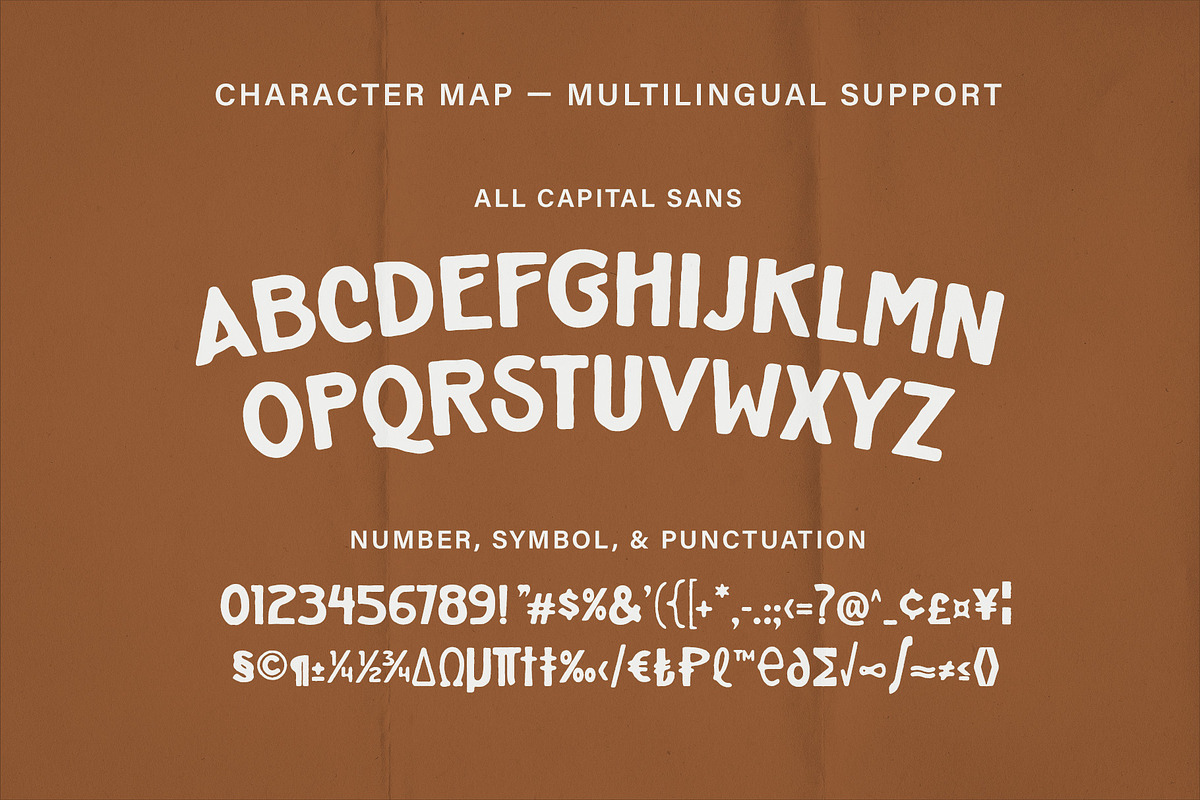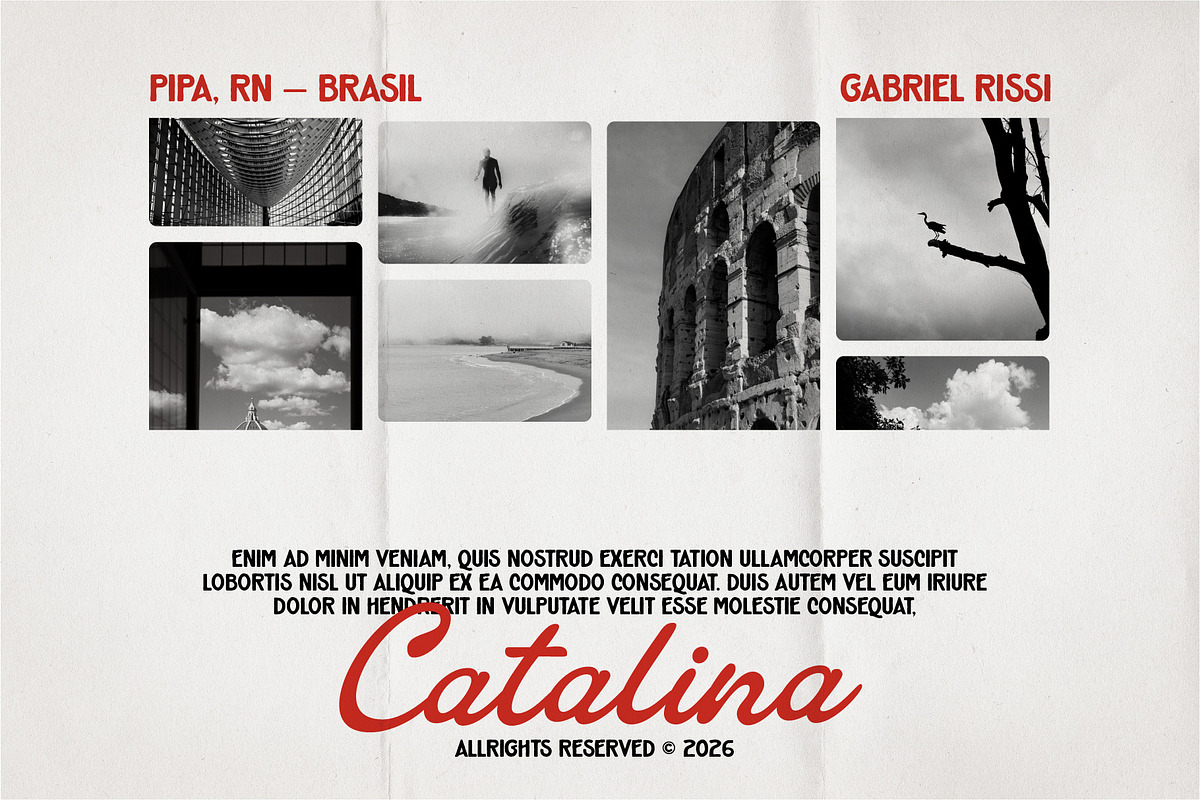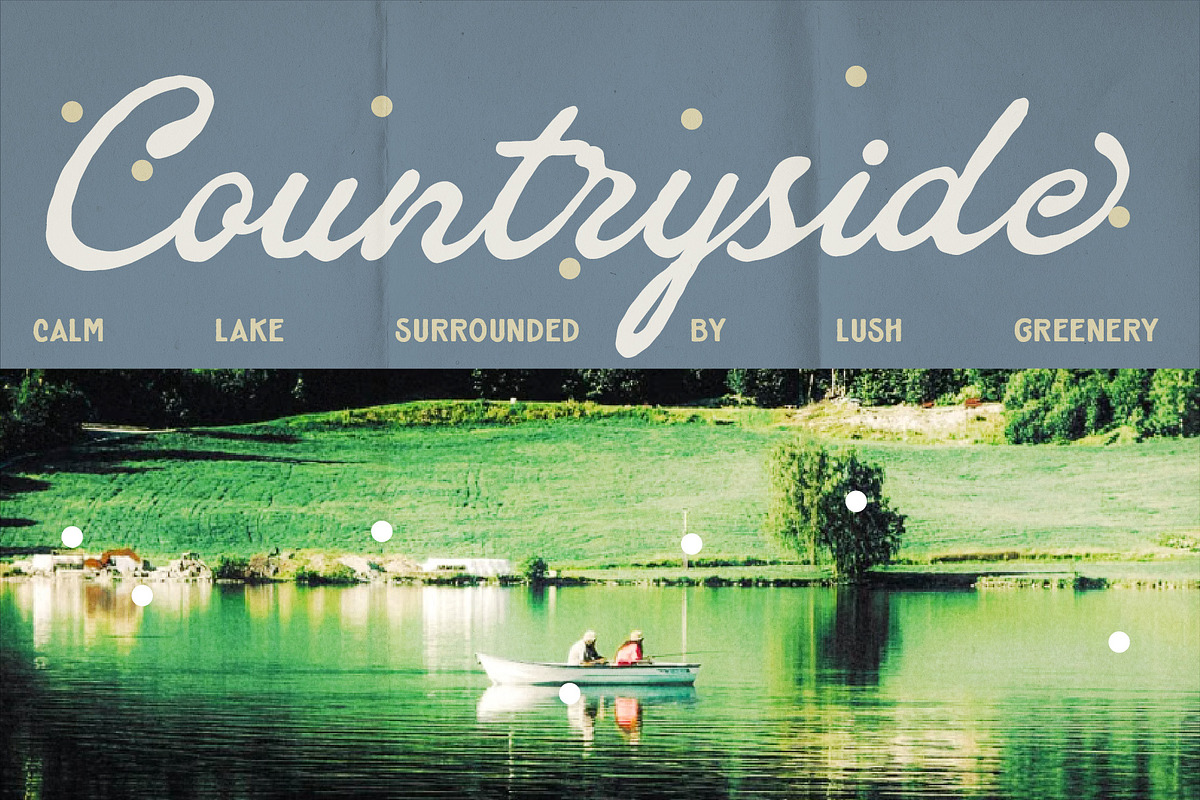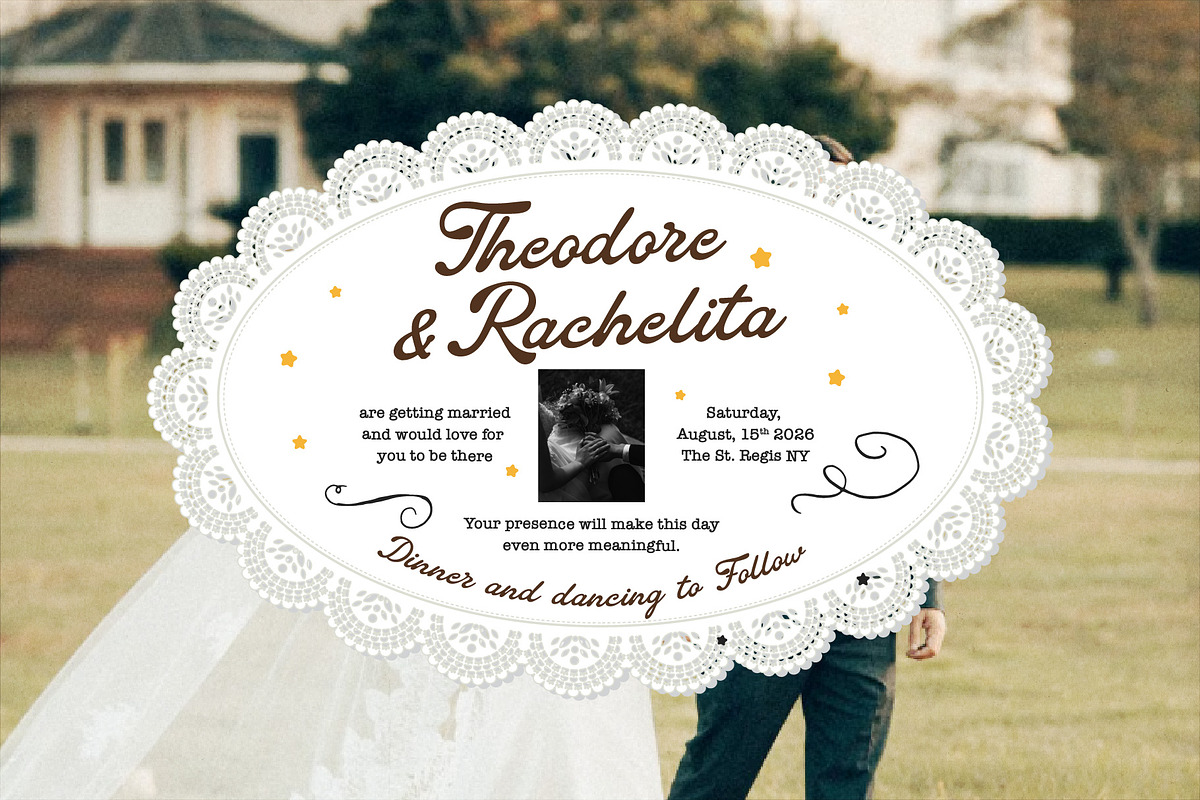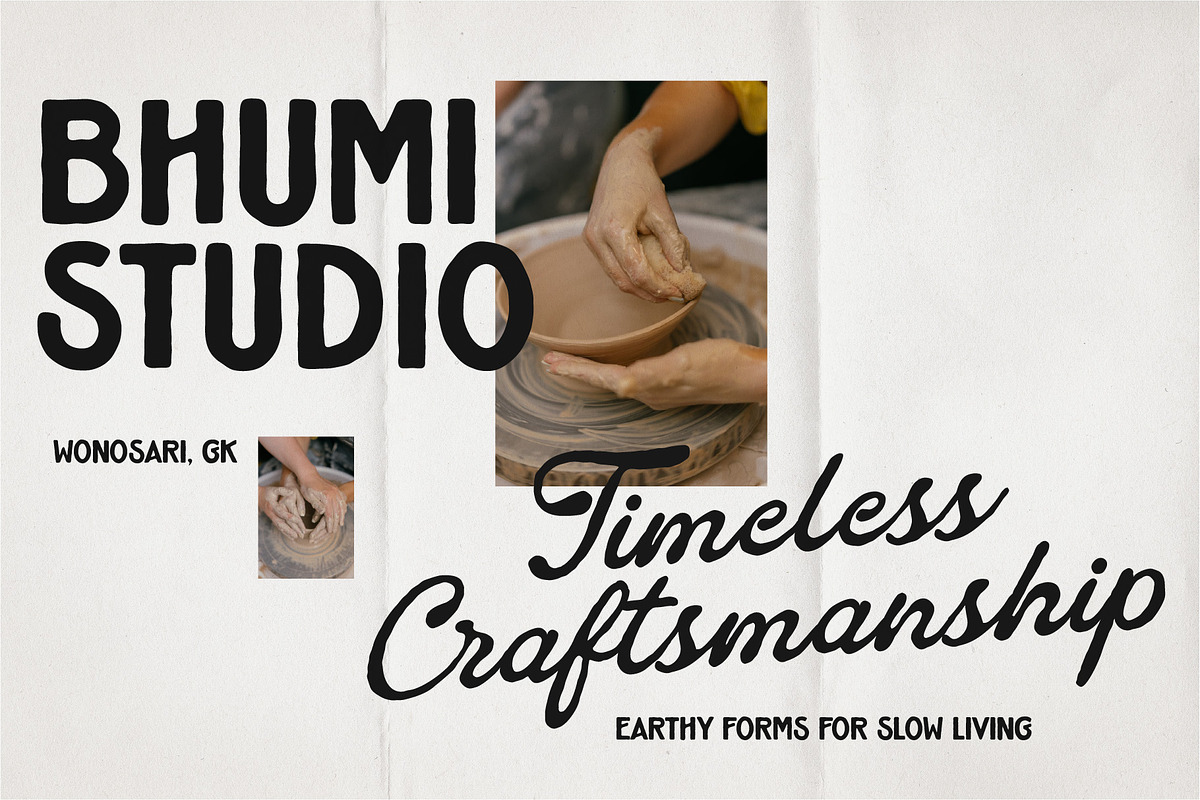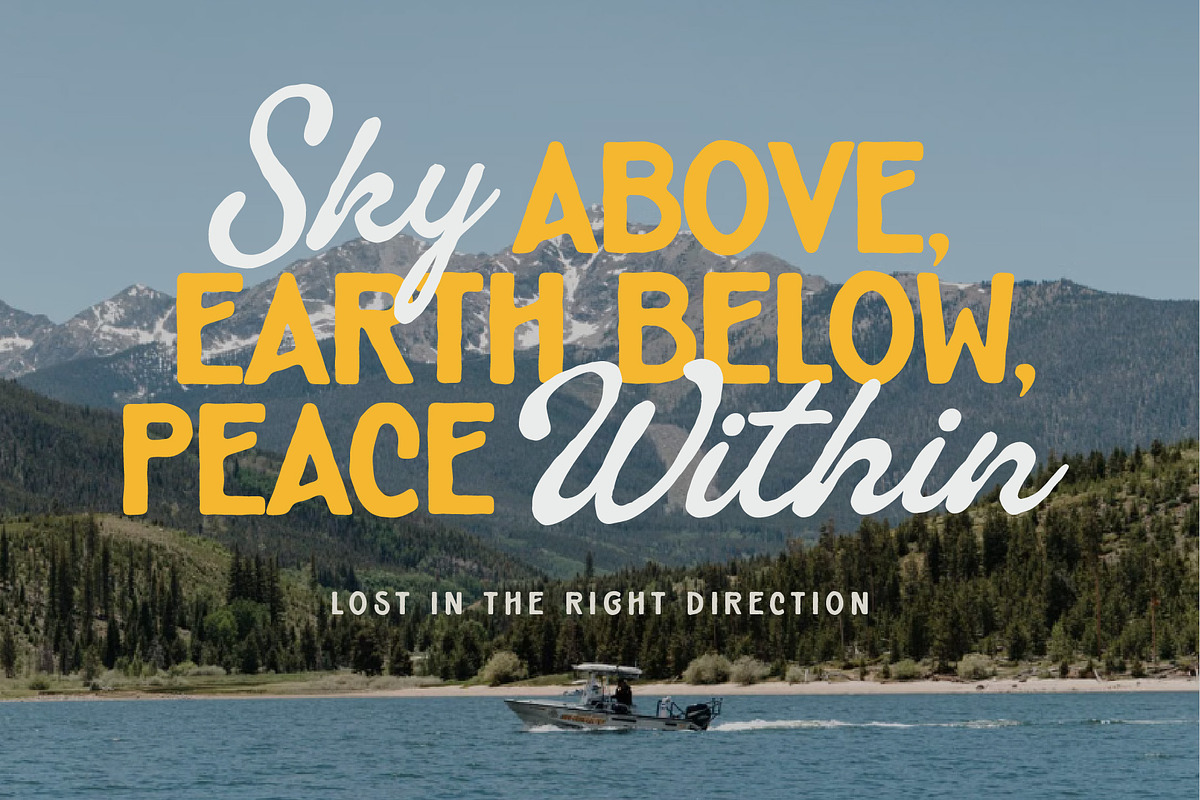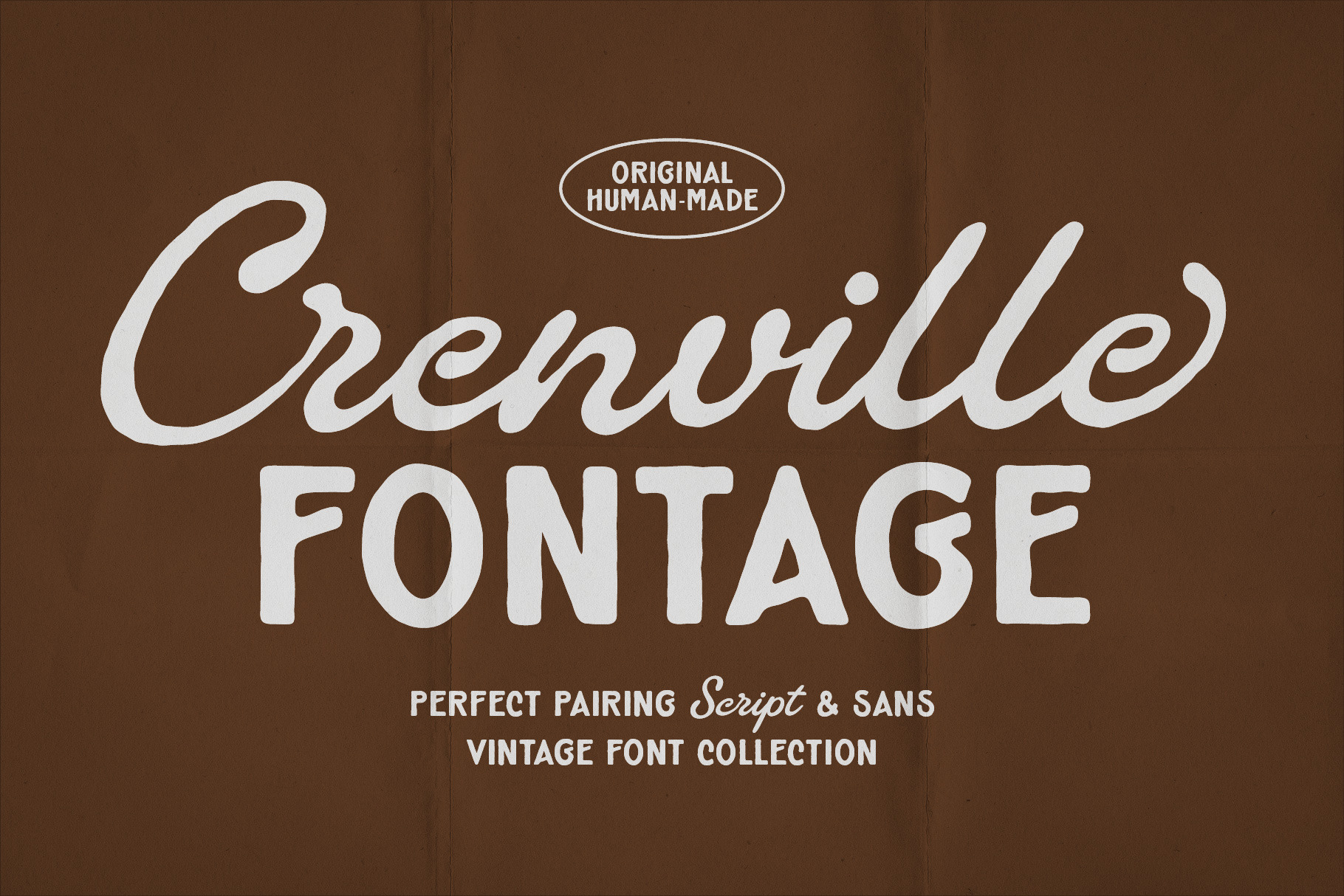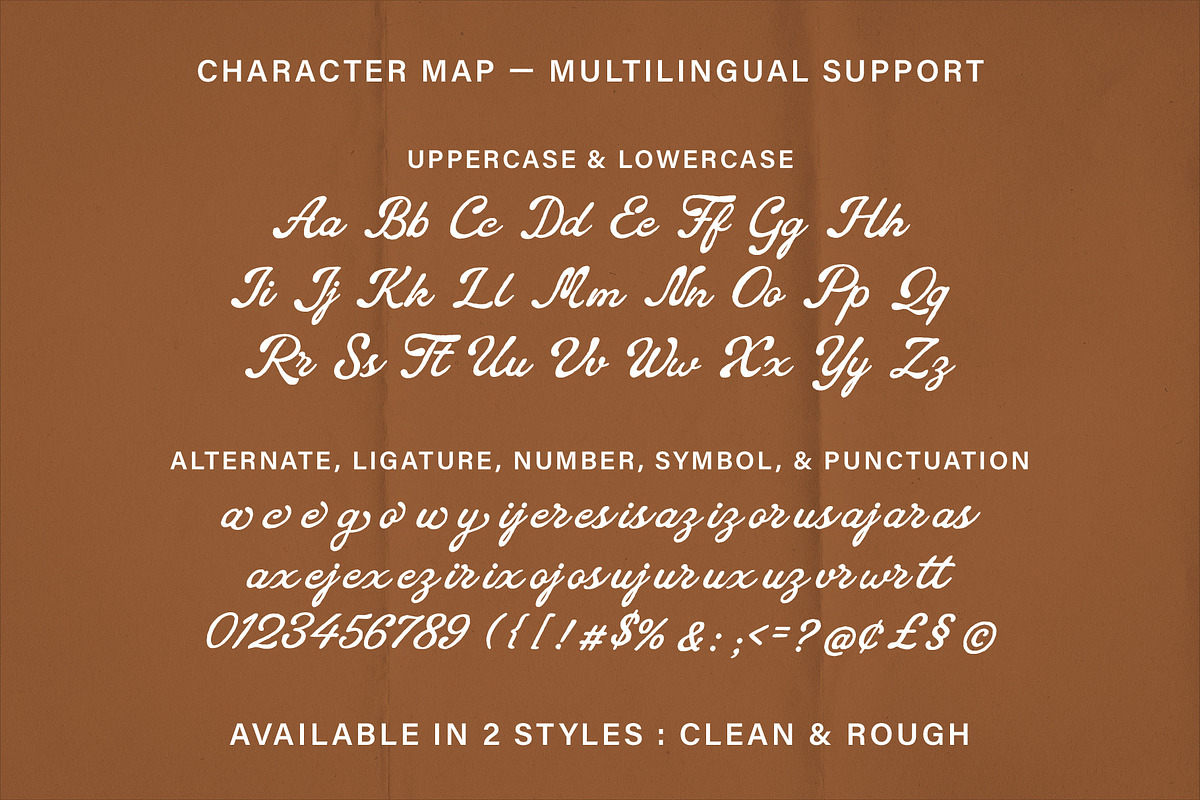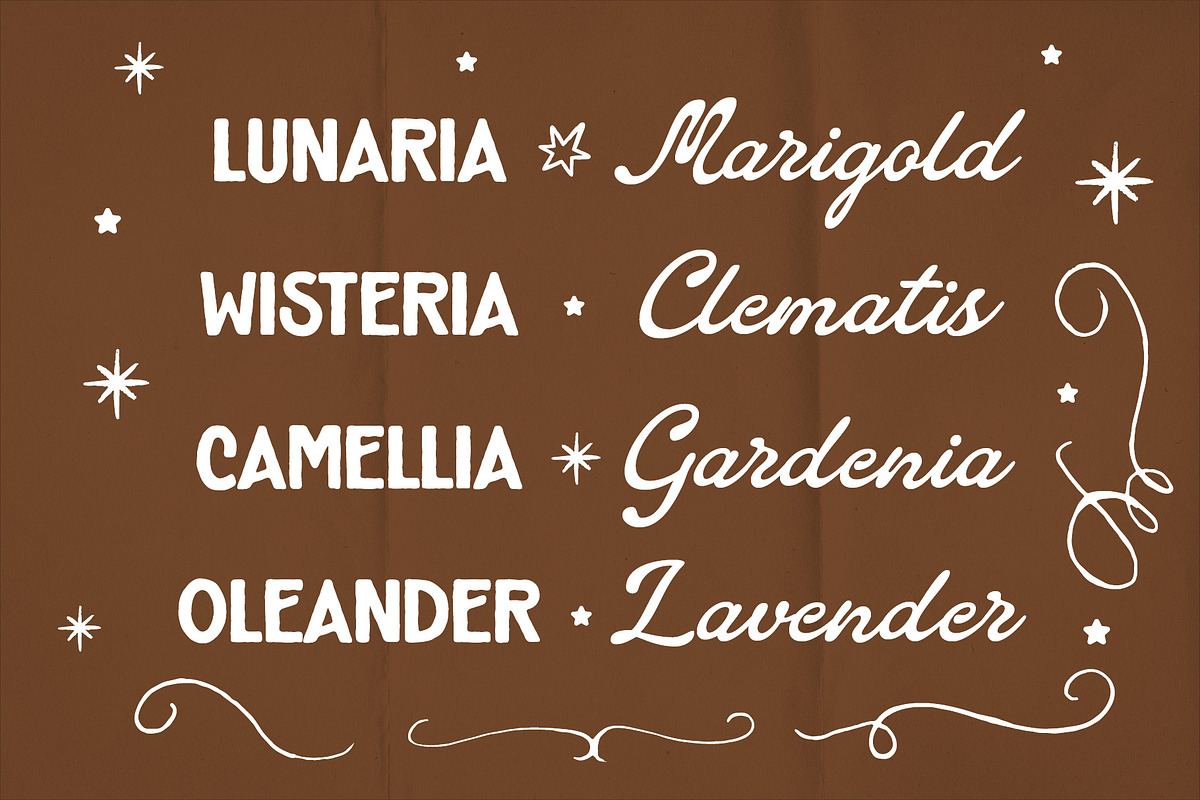
Crenville Fontage Vintage Font Duo
Crenville Fontage is a handcrafted vintage font duo that brings a raw and authentic feel to your designs. It features a perfect pairing of a textured, bold Sans Serif and a dynamic retro Script. Deliberately designed with natural imperfections, this font duo steps away from clean digital looks to give your creative projects a warm, nostalgic, and organic handmade touch.
This versatile font is perfect for artisan branding (like pottery studios), outdoor lifestyle merchandise, retro-classic wedding invitations, organic product packaging, coffee shop logos, vintage photography posters, and editorial quotes that need a strong, earthy visual statement.